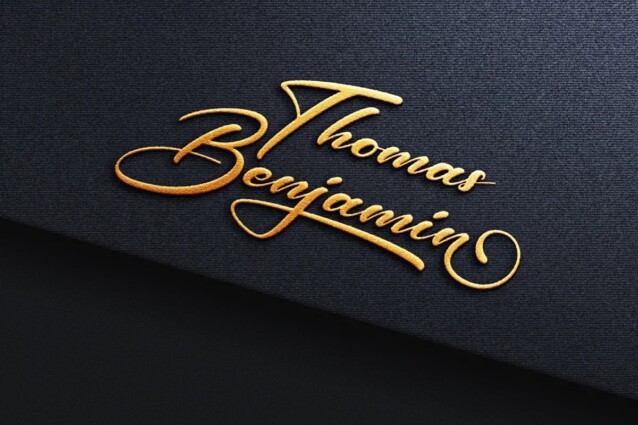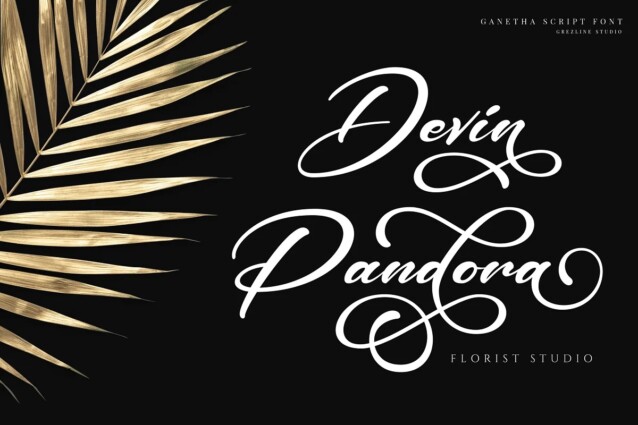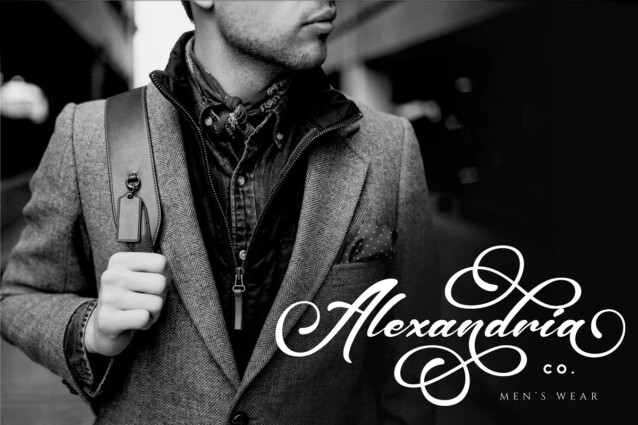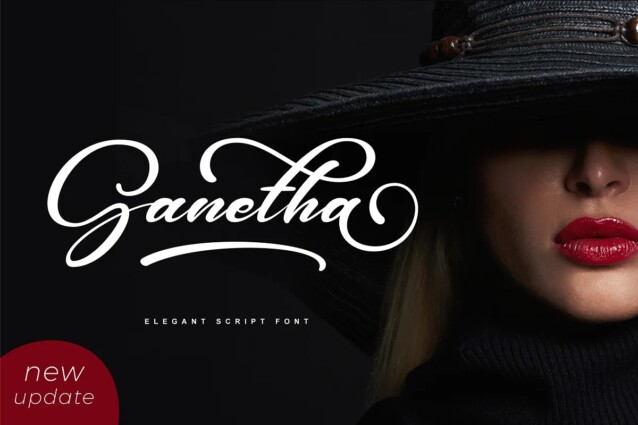
Ganetha Font is a stylish signature script typeface from Grezline Studio that will give instant and gorgeous flair to your designs. This font is perfectly suit for logo typography but it can also used for other branding needs such as magazine or book cover, website header, product packaging, invitation, quotes, t-shirt design, label poster and more.